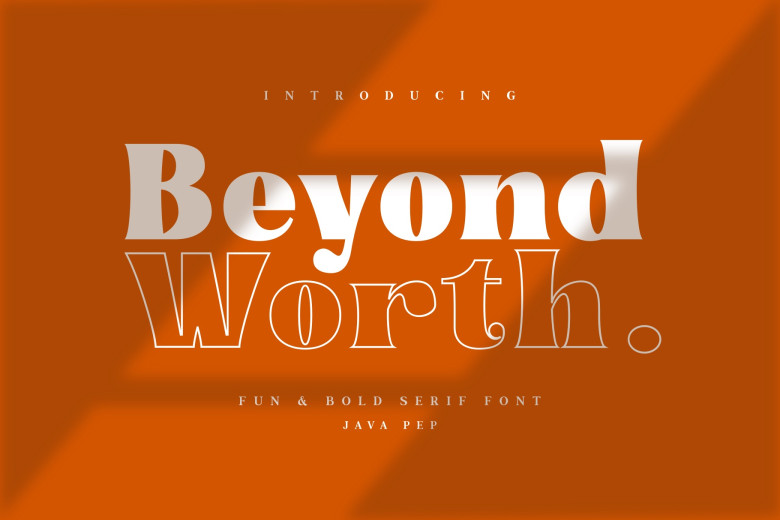
Beyond Worth Font
Beyond Worth is an elegant and striking font that will elevate any project, making your design stand out and making a statement about its elegance and quality. Use both its regular and outline versions for something truly original; beyond Worth is perfect for bold text, headings, titles, logotypes, branding applications and much more.